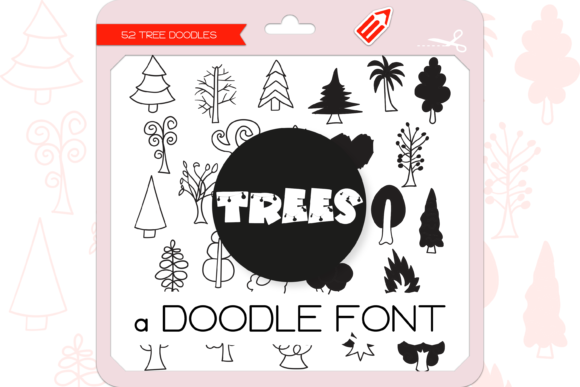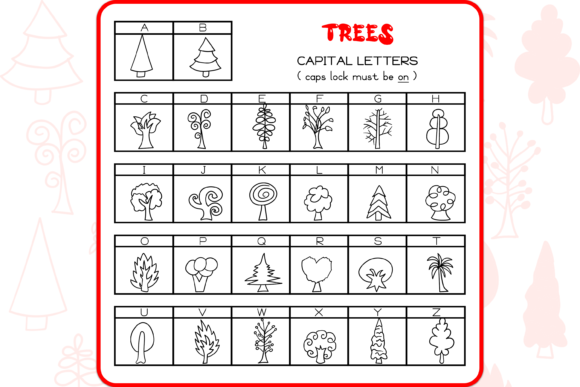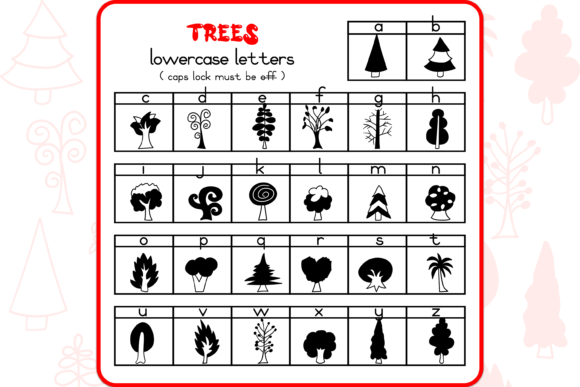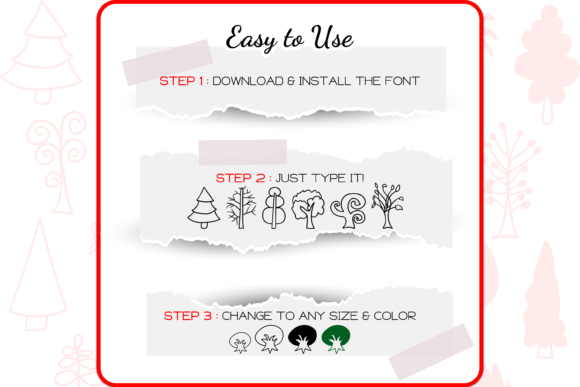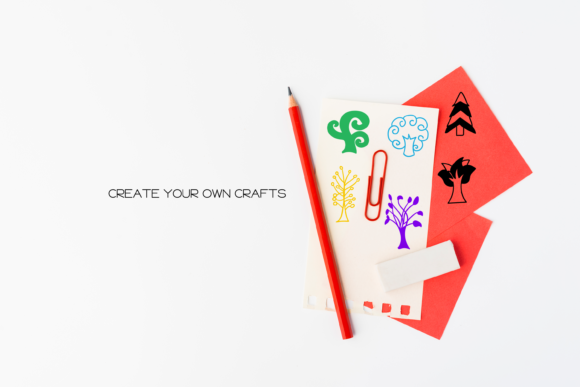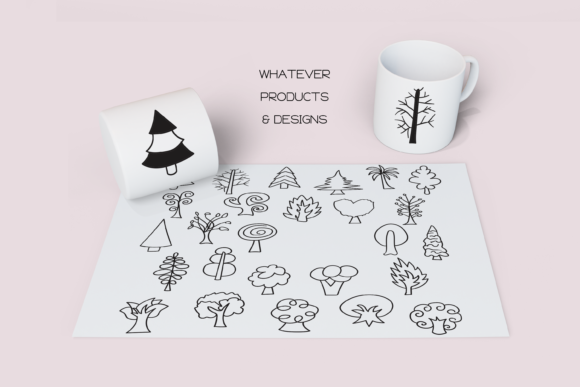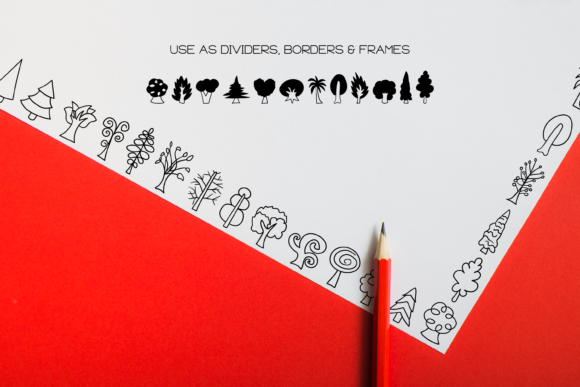
The Trees Font
About The Trees Font
The Trees Dingbats font is a delightful and versatile collection of 52 hand-drawn doodles featuring various tree designs. Whether you’re working on a nature-themed project, creating artwork, or designing invitations or stationery, The Trees Dingbats font can add a charming and whimsical touch to your creations. Here are some ideas on how to make the most of this font:
1. Borders and Dividers: Use the tree doodles as borders or dividers to separate sections of your content. These doodles can bring a natural and organic feel to your designs while providing visual interest and structure.
2. Typography and Headings: Replace individual letters or entire words with the tree doodles to create unique typography. This can be particularly effective for headlines, titles, or any text that you want to emphasize. Experiment with different tree doodles to add personality and character to your typography.
3. Backgrounds and Patterns: Repeat and arrange the tree doodles to create patterns or backgrounds for your designs. This can be useful for creating wallpapers, digital backgrounds, or even textured paper for printed materials. Play with the scale, rotation, and placement of the tree doodles to achieve the desired effect.
4. Branding and Logos: If your brand or business is related to nature, sustainability, or outdoor activities, incorporating the tree doodles into your logo or branding materials can help convey your brand’s identity. The unique and hand-drawn style of the doodles can make your brand stand out and create a memorable impression.
5. Environmental and Educational Materials: If you’re working on educational materials or campaigns related to the environment or nature conservation, The Trees Dingbats font can be a valuable asset. Use the tree doodles to illustrate different tree species, create educational posters, or enhance informational materials.
6. Digital and Print Design: The tree doodles can be used in various digital and print design projects, including websites, social media graphics, packaging, greeting cards, and more. Add them as decorative elements, accents, or focal points to enhance your overall design aesthetic.
7. Crafts and DIY Projects: Print and cut out the tree doodles to use in crafts and DIY projects. They can be used as stickers, embellishments for scrapbooking, or even as stencils for painting or tracing.
Remember to adapt the size, color, and style of the tree doodles to suit your specific project and design requirements. Feel free to mix and match different tree doodles to create visually appealing compositions.
In conclusion, The Trees Dingbats font offers a unique and playful way to incorporate tree-themed doodles into your creative projects. Whether you’re using them for borders, typography, patterns, or branding, these hand-drawn doodles can bring a touch of nature and whimsy to your designs. Let your imagination take root and explore the endless possibilities with The Trees Dingbats font!